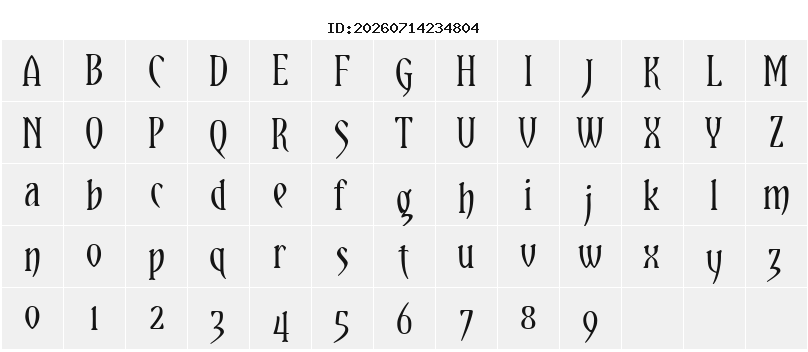
• Font Name: Yataghan
• Font ID: Altsys Fontographer 4.0 Yataghan
• Full Font Name: Yataghan
• Version: Altsys Fontographer 4.0 12/7/2001
About Yataghan.ttf
Yataghan.ttf is a modern, elegant sans-serif font designed for ultimate readability and visual harmony. Perfect for branding, headlines, web design, and print materials.